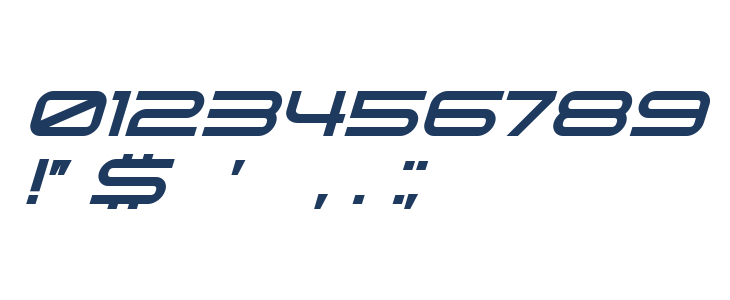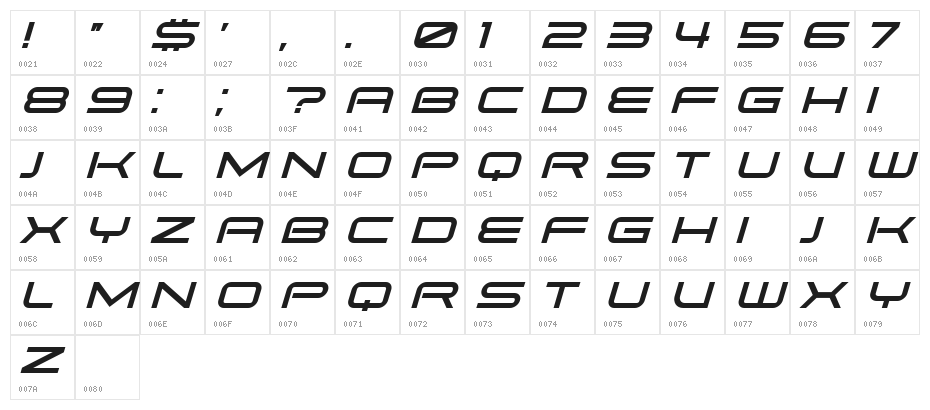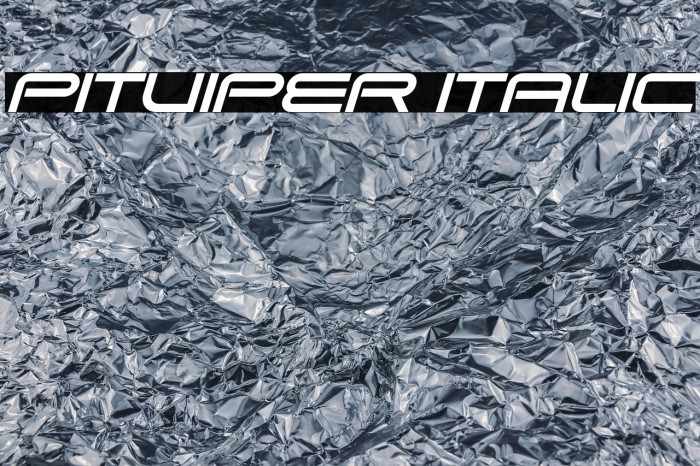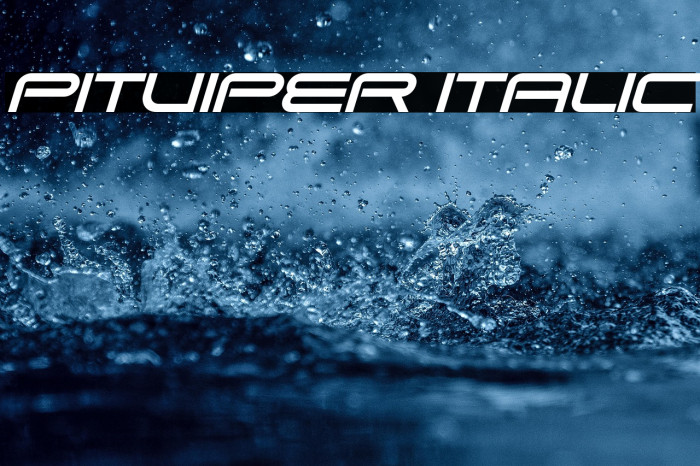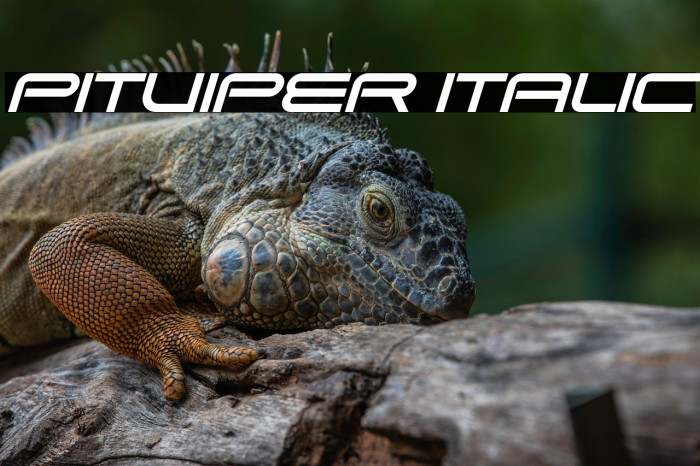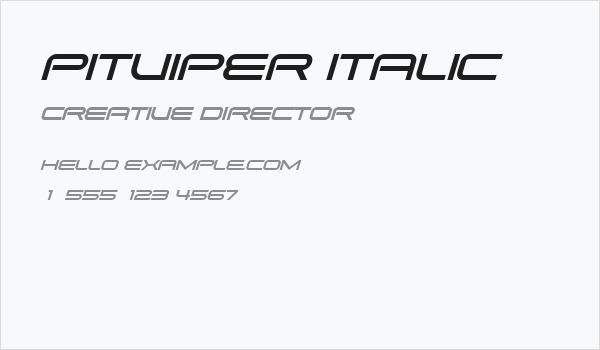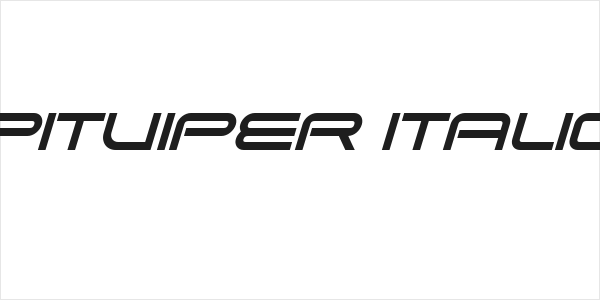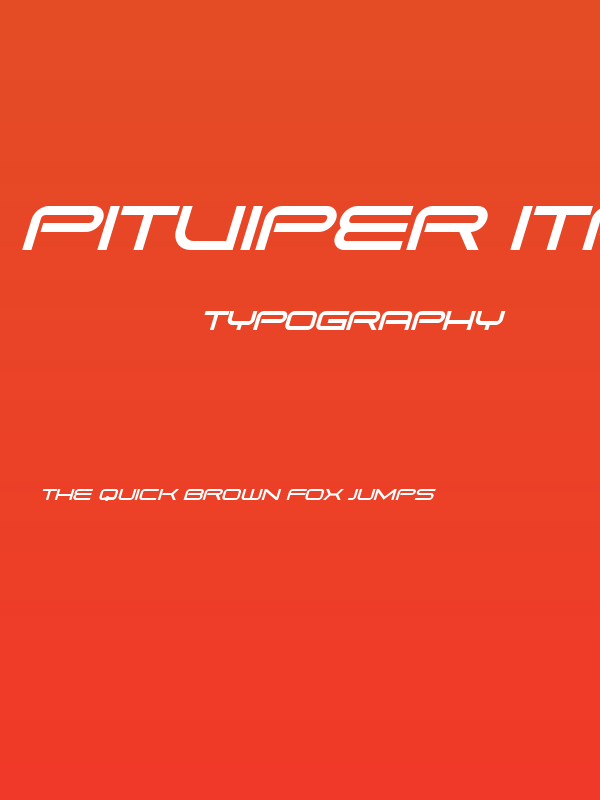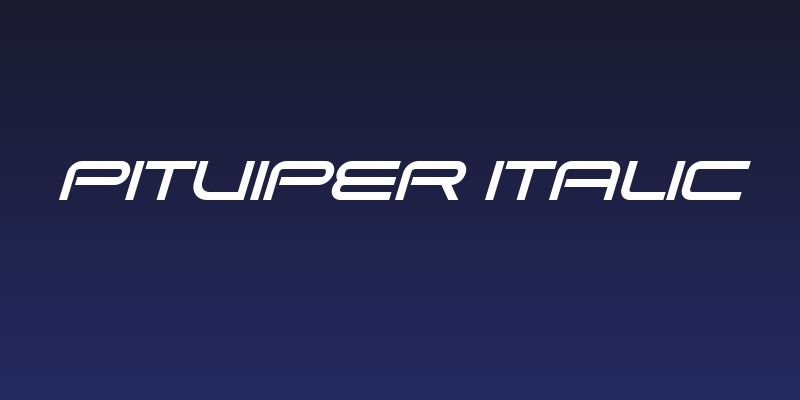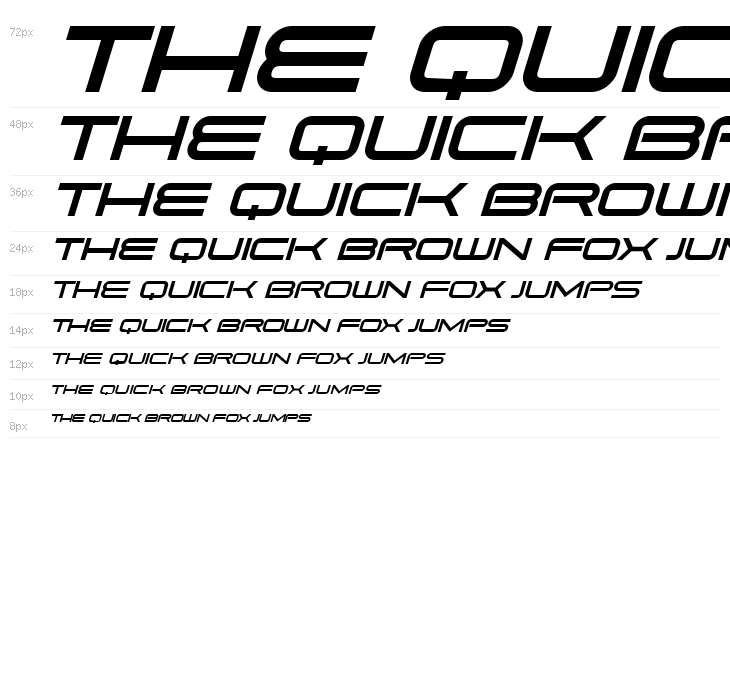
Pitviper Italic Font
Pitviper Italic Description
This font features a sleek, futuristic design with a distinct italic slant, giving it a dynamic and forward-moving appearance. The characters are crafted with sharp angles and clean lines, creating a sense of speed and modernity. The uppercase and lowercase letters maintain a consistent style, with a uniform stroke width that enhances readability. The numerals and special characters are designed to match the overall aesthetic, making them suitable for a variety of applications. The font's unique style makes it ideal for projects that require a contemporary and edgy look.
| Use Case | Logos, Headlines, Branding |
| Proposed Projects | Ideal for branding, sports team logos, automotive designs, and tech-related projects. |